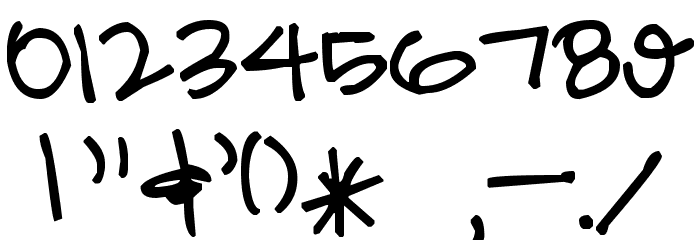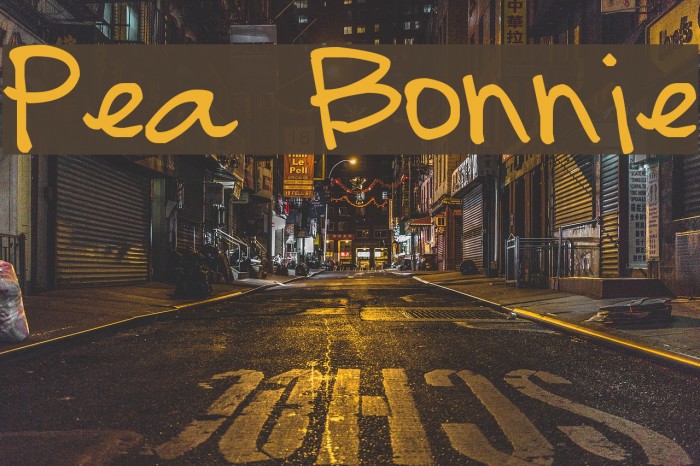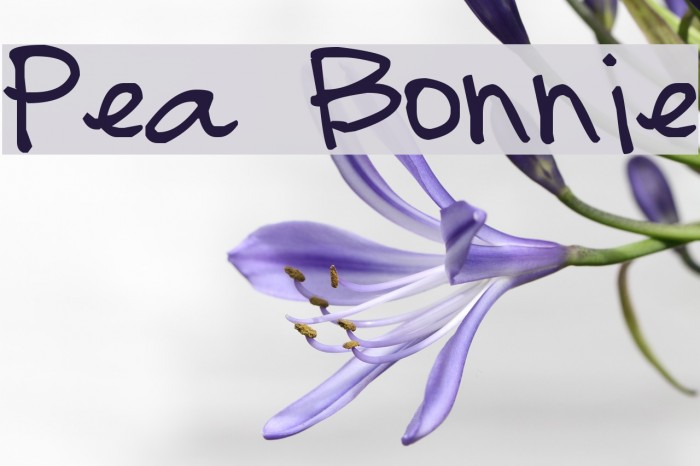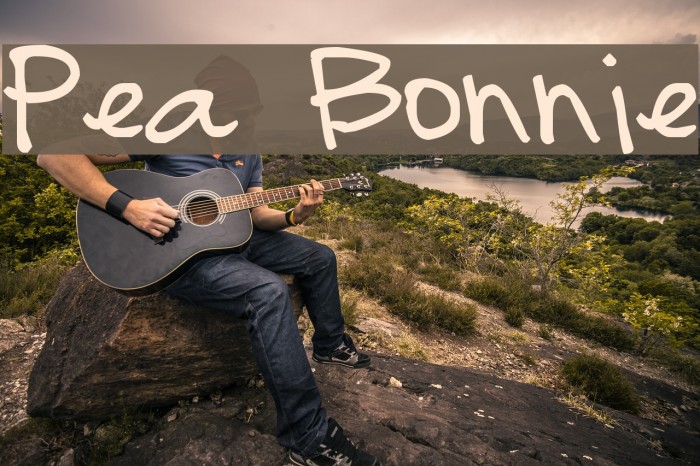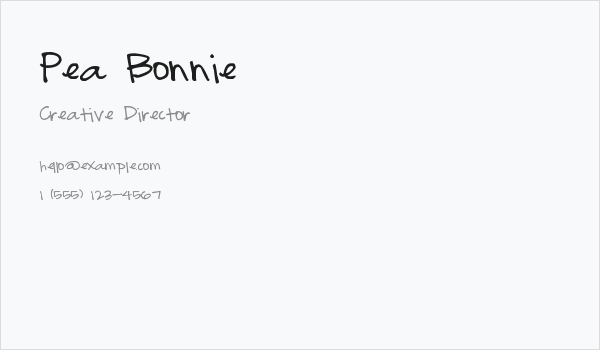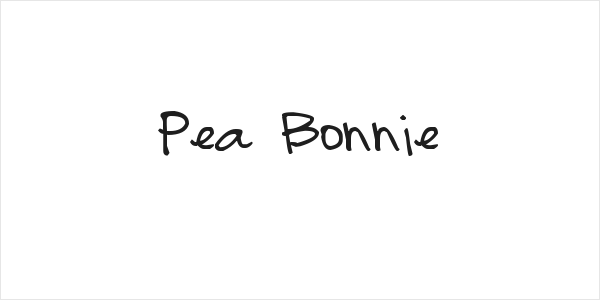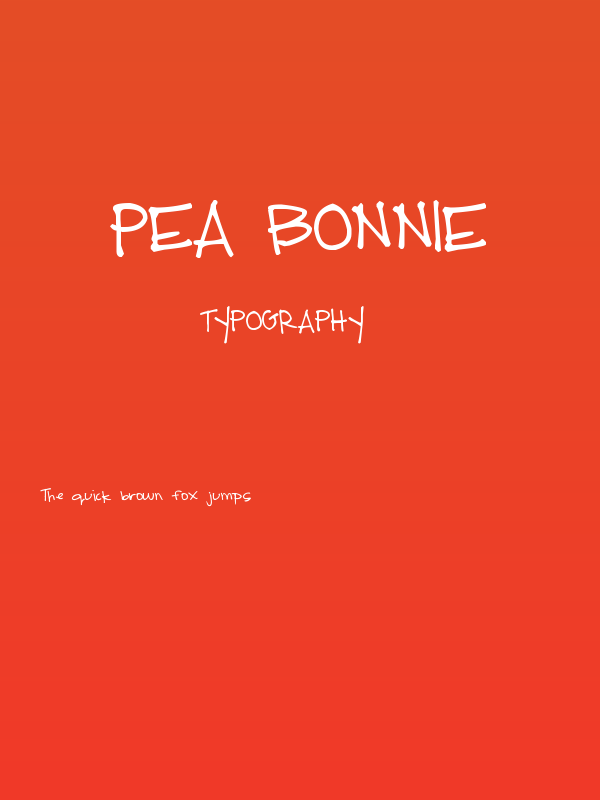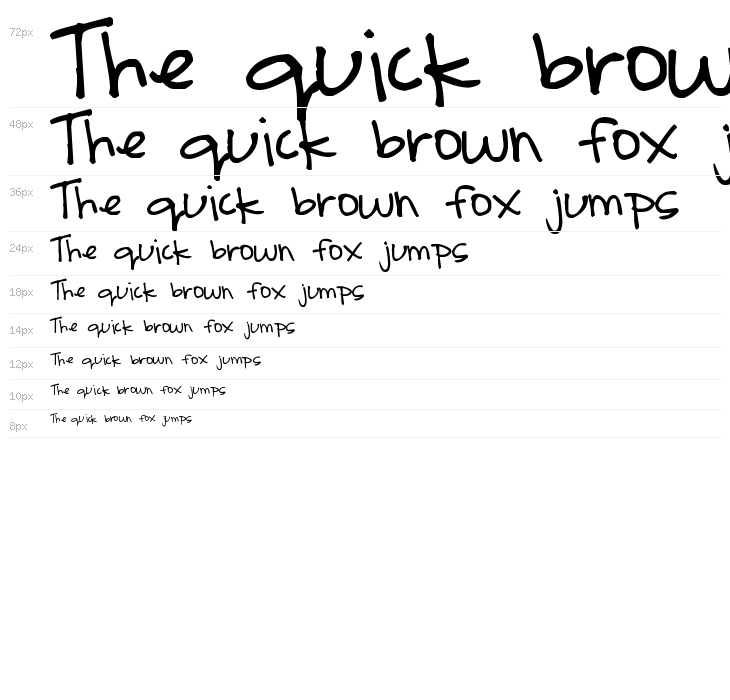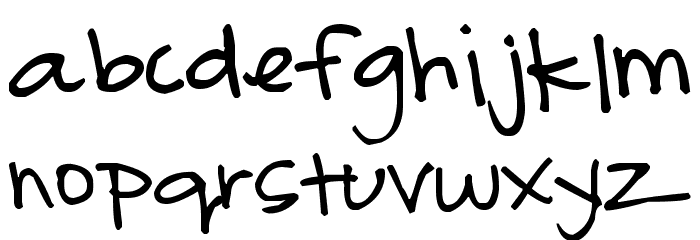
Pea Bonnie Font
Pea Bonnie Description
This playful and casual handwritten font exudes a sense of whimsy and friendliness. The characters are unevenly sized, giving it an authentic, hand-drawn appearance. The strokes are smooth and slightly irregular, adding to its charm. It features a mix of rounded and angular elements, creating a dynamic and lively feel. The font maintains a consistent baseline, while the varying heights of the letters contribute to its informal style. It's perfect for projects that require a personal touch, such as greeting cards, invitations, or playful branding.
| Use Case | Greeting cards, Invitations, Playful branding |
| Proposed Projects | Ideal for greeting cards, invitations, playful branding, and personal projects. |